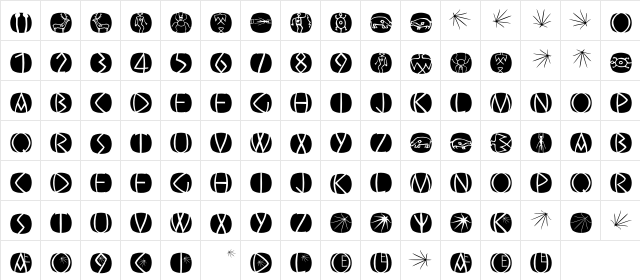
OldGreekButtons Regular
Design Context for OldGreekButtons Typeface
OldGreekButtons is a composed and adaptable typeface that performs quietly and consistently across a wide range of design contexts.